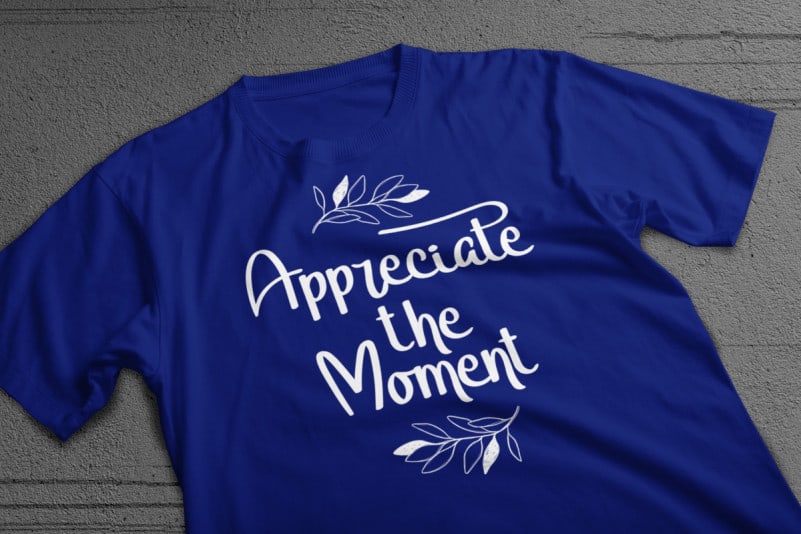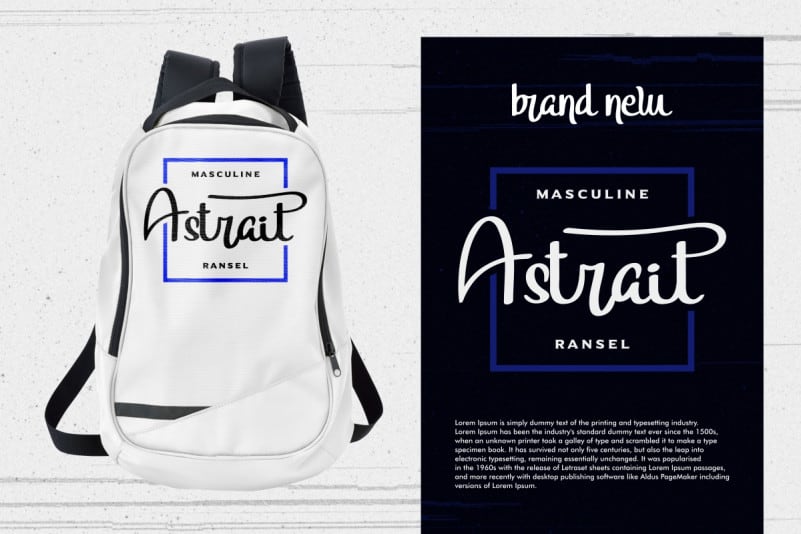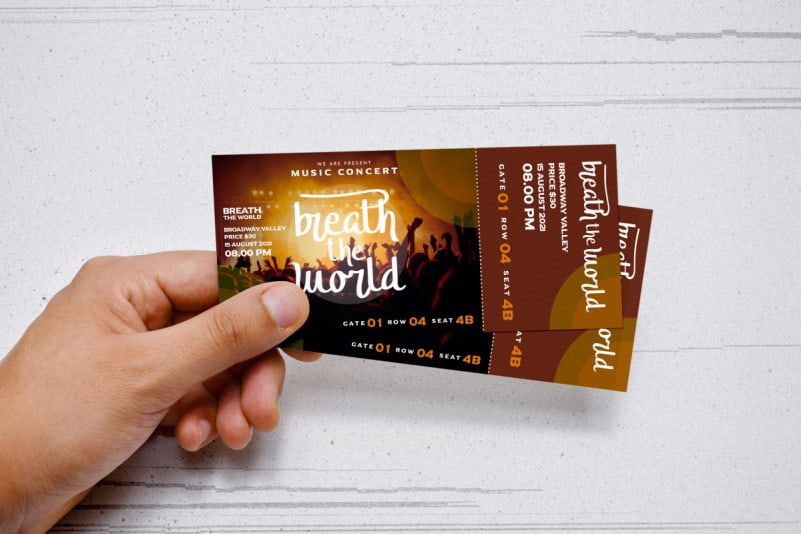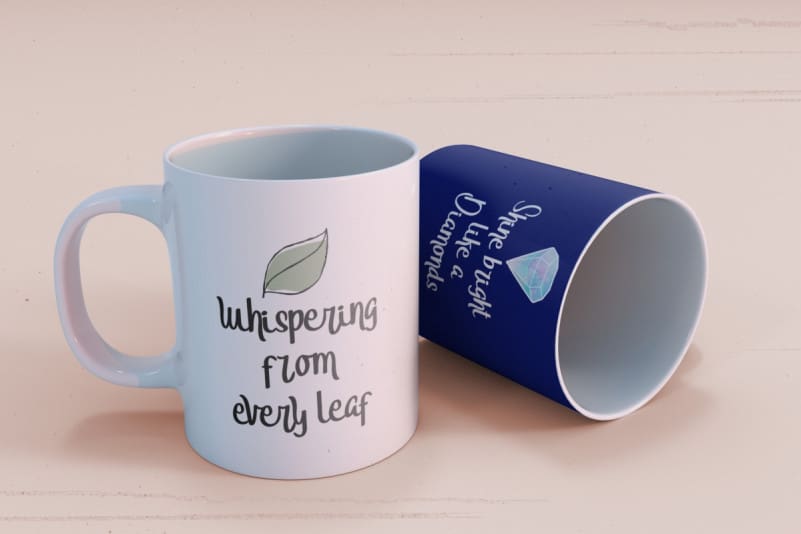
Djonathan Script Font
Djonathan Script Font is a unique calligraphy font. It has unique looks that are beautiful, modern, elegant, luxury, lettering and sophisticated brush font.